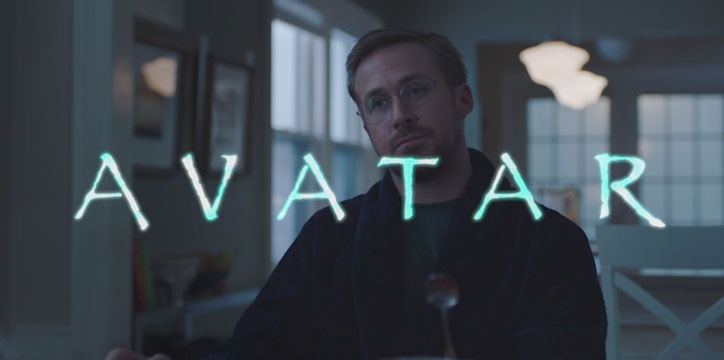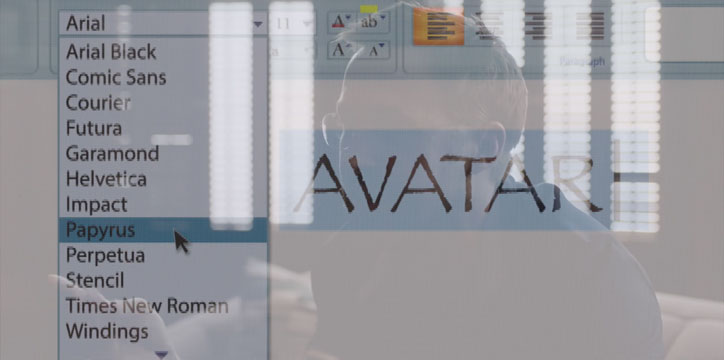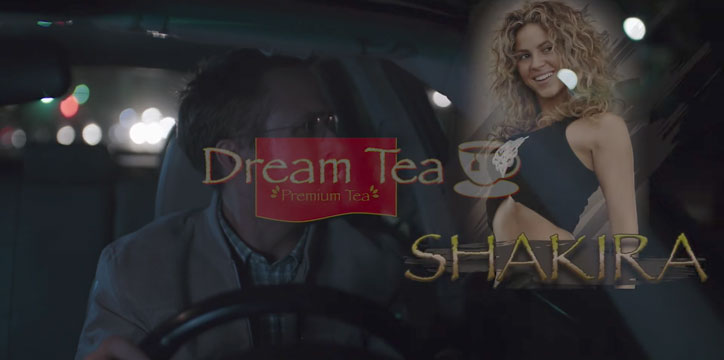
Designer of Papyrus font reacts to Ryan Gosling’s SNL takedown
This weekend’s Saturday Night Live featured a sketch that resonated with design fans around the world. Starring Ryan Gosling as Steven, a man tormented by the use of the Papyrus font on the Avatar logo, the three-minute sketch tears the design choice to shreds in brilliant satire. Now the film has gone viral, Chris Costello, the original designer of the font, has spoken to CBS News in reaction.
“I had no idea it would end up on every computer in the world,” says the graphic designer during the video interview, which you can watch here. “I designed it when I was 23, right out of college. I was studying the bible and looking for God and this font came to mind… thinking about Biblical times, Egypt and the Middle East. I just started scribbling this alphabet… and ended up developing the entire font set.”
In the sketch, Ryan Gosling describes Avatar’s typeface choice as a random selection, “like a thoughtless child just wandering by a garden, yanking leaves along the way”. “He just got away with it,” he continues. “This man, this… professional graphic designer. Is it laziness, was it cruelty?”
The CBS interviewer asks Chris why his design is considered one of the most hated fonts, and he says at the time he believed it was well thought out. “I was thinking very earthy, Middle Eastern, almost hieroglyphics,” he explains. “I sold the rights and it ended up being with the font set on every computer in the world. With that broad range I began to see it everywhere, mortgage ads, construction logos, it got out of control.”
In the film, Gosling is haunted by sightings of the font on “hookah bars, Shakira merch and off-brand teas”. Chris says: “It was not my intent to have it used for everything. It’s way overused.”
He also reveals he sold the font for $750 and “very low” royalty payments. “I had no idea it would take off like this.”
Saturday Night Live: Papyrus